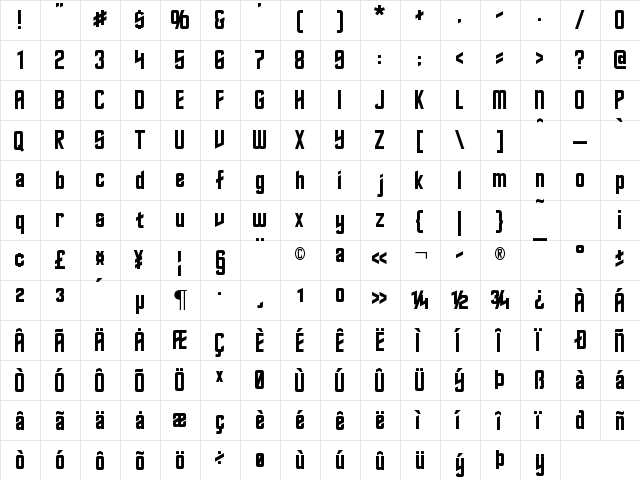
Roddenberry Regular
Design Context for Roddenberry Typeface
Roddenberry offers clean, dependable letterforms without strong stylistic allegiance, making it a practical choice for designers who need flexibility.
Pro Tip: Pair Roddenberry with a font of contrasting weight or personality to build a more expressive typographic hierarchy.